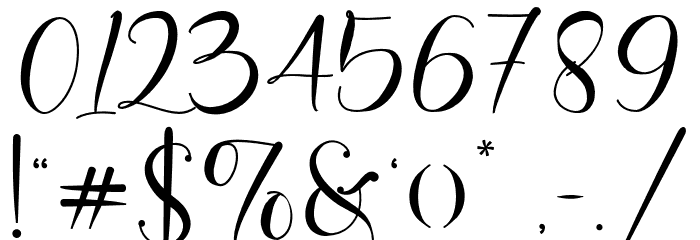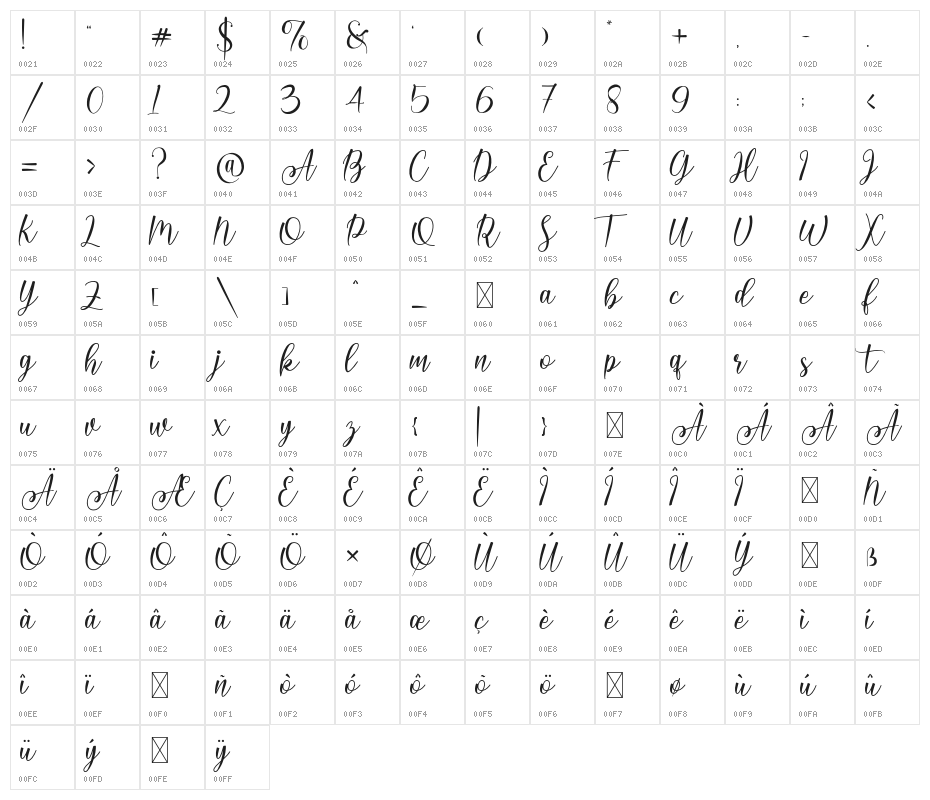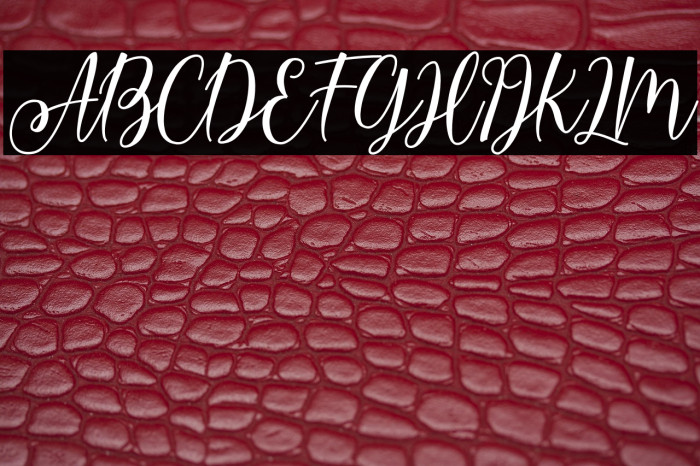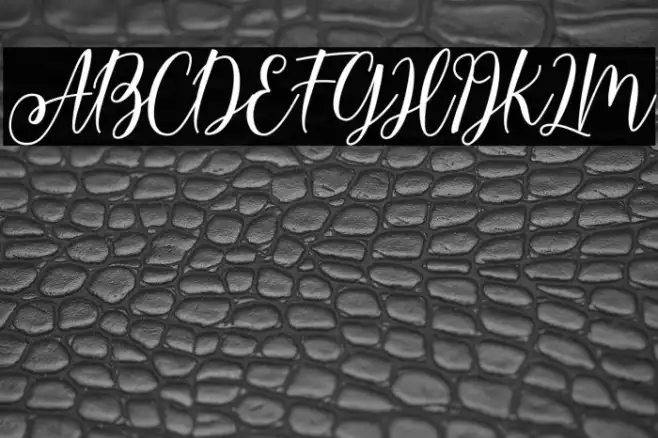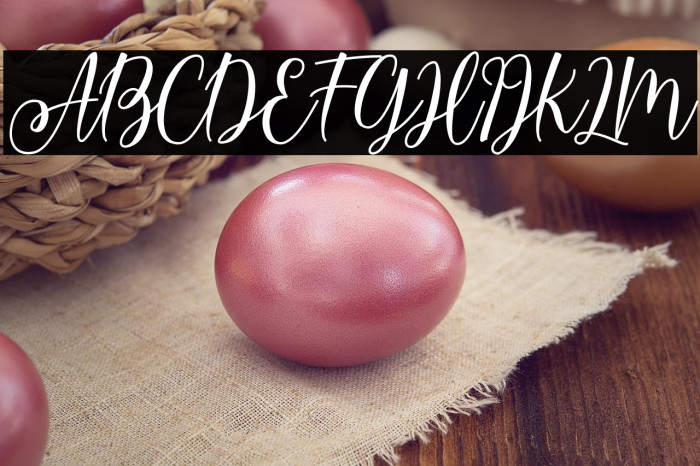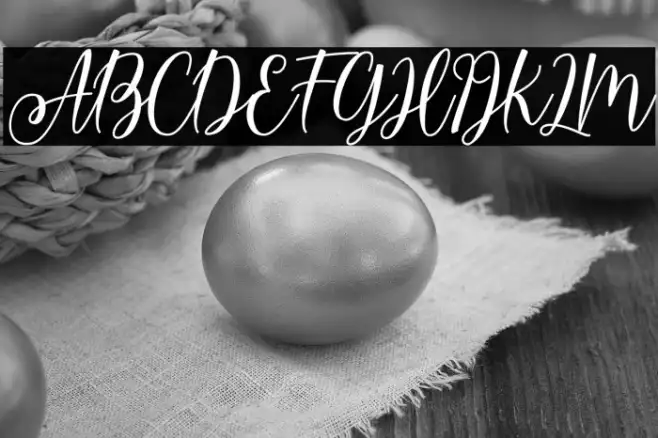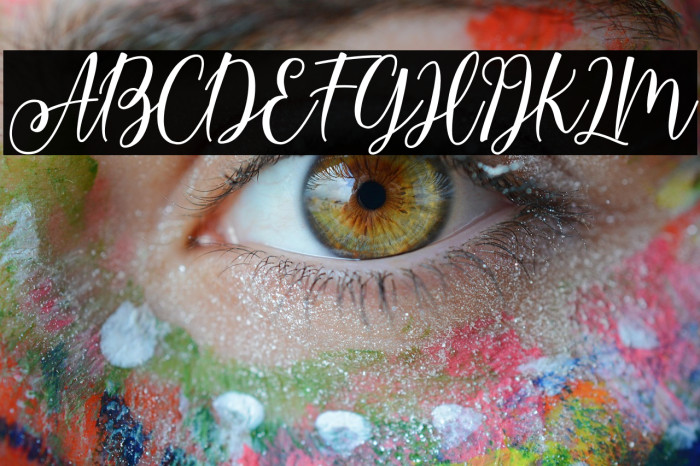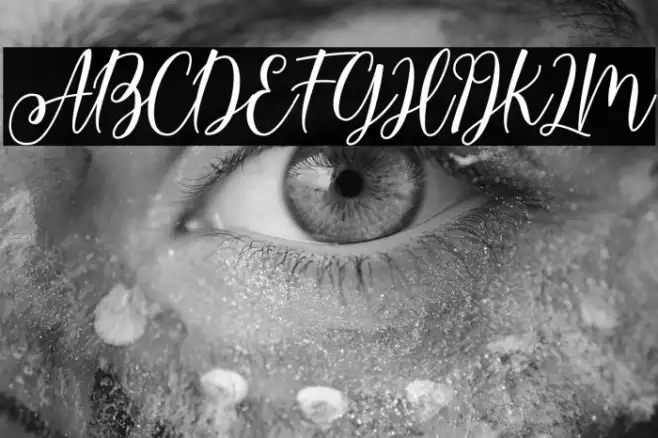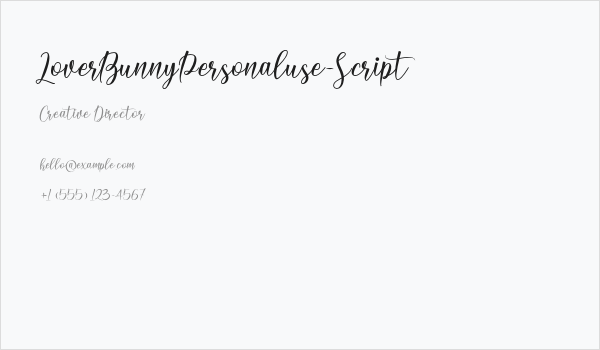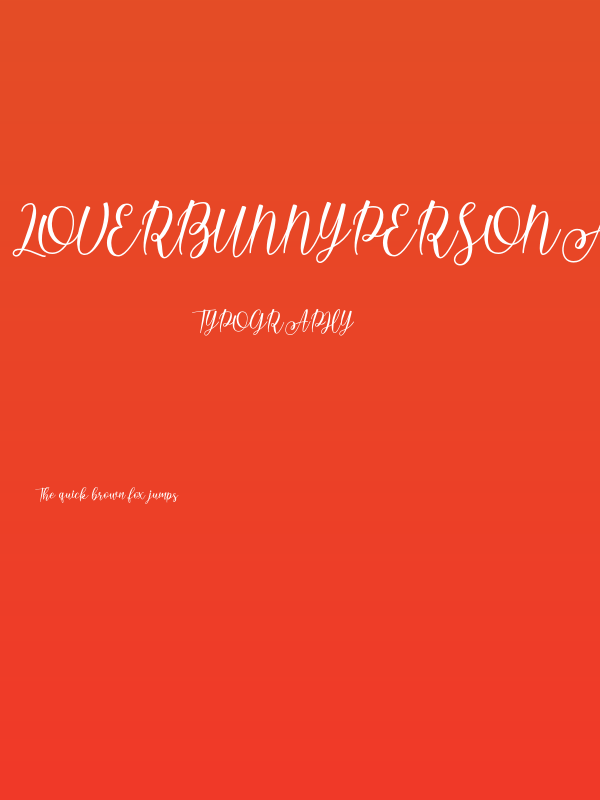
LoverBunnyPersonaluse-Script Font
LoverBunnyPersonaluse-Script Description
This elegant script font features flowing, cursive letterforms with a graceful and sophisticated appearance. The uppercase letters are characterized by their sweeping curves and loops, while the lowercase letters maintain a consistent fluidity, enhancing the font's overall charm. The numerals are stylishly integrated, maintaining the script's aesthetic. Special characters are thoughtfully designed to complement the overall style, making them suitable for decorative purposes. The font's design is perfect for adding a touch of elegance and refinement to any project.